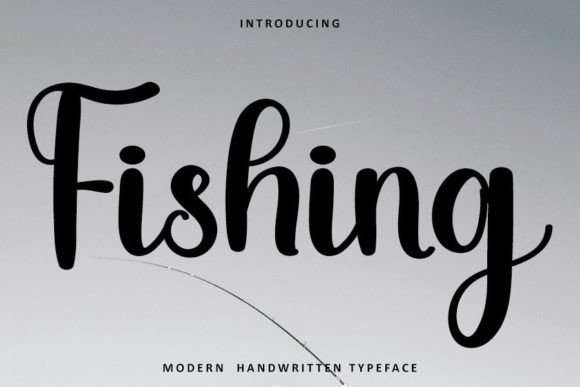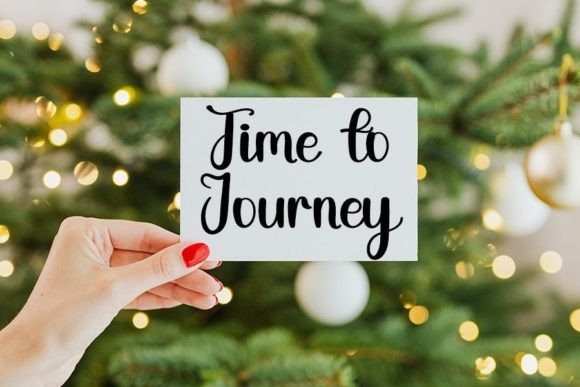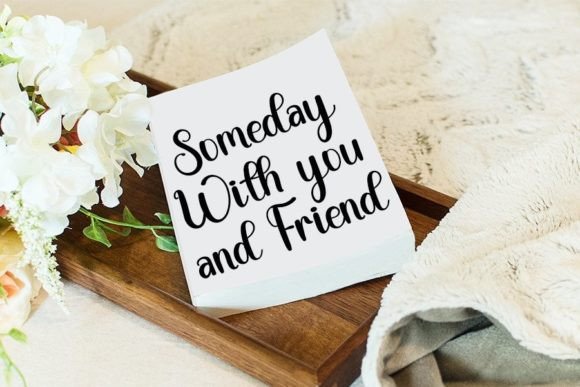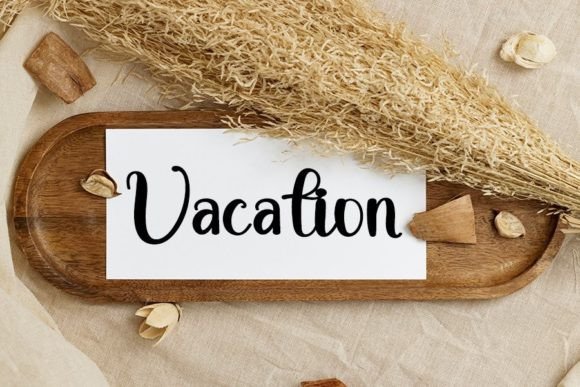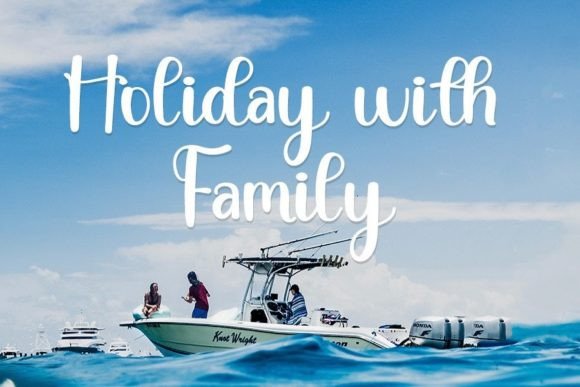
Fishing Font
About Fishing Font
“Fishing” is a charming and beautifully crafted handwritten font that combines neatness with elegance. Its distinct and timeless style makes it a perfect choice for a wide range of creative projects. Whether you’re working on invitations, greeting cards, posters, social media graphics, or any other design, “Fishing” adds a touch of sophistication and grace to your creations.
The font’s neat and well-defined letterforms exude clarity and precision. Its elegant touch gives your text a polished and refined look, making it suitable for various design applications. “Fishing” effortlessly captures attention with its distinct and stylish appearance, making your projects visually appealing and memorable.
With its timeless style, “Fishing” ensures that your designs have a classic and enduring appeal. Its versatility allows it to complement different themes and design elements, making it a valuable asset for both digital and print media. Whether used for branding, packaging, or promotional materials, “Fishing” elevates your projects with its elegant and neat handwritten style.
Embrace the distinctiveness of “Fishing” and let it inspire your creativity. Its unique charm and elegance make it a go-to choice for designers seeking a font that combines sophistication with clarity. Fall in love with its neat and beautiful handwritten style, and watch as it transforms your creative visions into spectacular designs. With “Fishing,” you have the perfect tool to create visually stunning and captivating artworks that leave a lasting impression on your viewers.